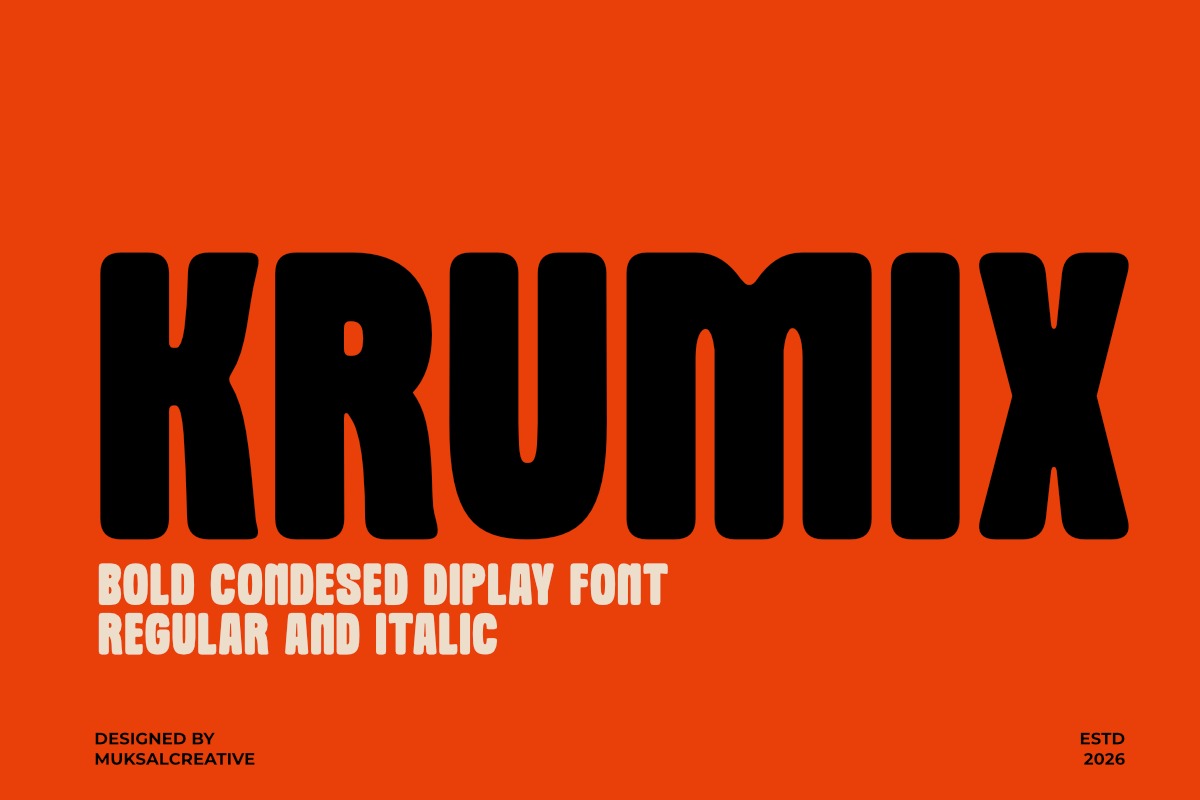
Krumix – Bold Condensed Font
Krumix – Bold Condensed Font is a versatile font designed to adapt beautifully across different design styles, offering dependable readability and balance. KRUMIX is a bold condensed display font designed to make a powerful visual statement. With its strong vertical proportions, rounded corners, and confident personality, KRUMIX delivers maximum impact while maintaining excellent readability.
Inspired by contemporary poster design, urban branding, and modern editorial layouts, KRUMIX is perfect for designers who want typography to become the centerpiece of their work. Whether you’re creating eye-catching headlines or bold brand identities, KRUMIX brings energy, confidence, and character to every project.
Its condensed structure allows more words to fit into limited spaces without sacrificing visual strength, making it ideal for high-impact compositions.